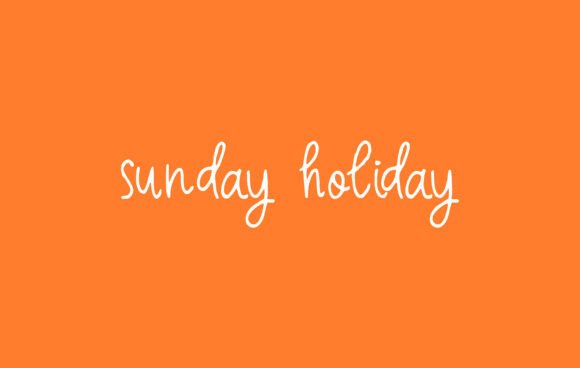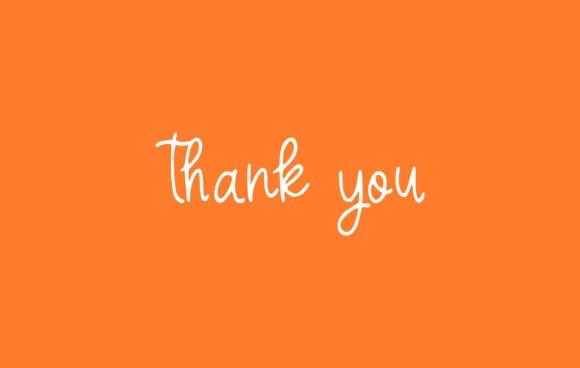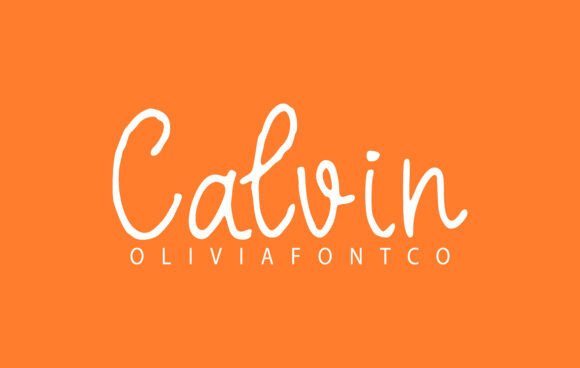
Introducing Calvin Font: The Ultimate Handwritten Font for Creative Expression
Are you tired of using the same old fonts for your designs? Look no further than Calvin Font, a beautiful and authentic handwritten font that adds a romantic touch to any project. Expertly designed to be a true favorite among designers and crafters, Calvin Font has the potential to take your creative ideas to the highest level.
What Makes Calvin Font Special?
Calvin Font is more than just a font – it’s an expression of creativity and individuality. Its unique, handwritten style gives it a personal touch that’s hard to find in digital fonts. The font is legible and looks great as a title or body text, making it perfect for a wide range of design applications.
Calvin Font is incredibly versatile, making it suitable for many different designs. Here are just a few ideas to get you started:
- Magazine Headlines: Add a touch of elegance and sophistication to your magazine headlines with Calvin Font.
- Social Media: Stand out on social media with eye-catching graphics and posts created with Calvin Font.
- Branding: Establish your brand’s unique identity with Calvin Font, perfect for logos, business cards, and more.
- Wedding Invitations: Make your wedding invitations truly special with Calvin Font’s romantic and whimsical touch.
- Cards: Create beautiful and heartfelt cards for any occasion with Calvin Font.
Why Choose Calvin Font?
There are many reasons why Calvin Font stands out from the crowd:
- Unique and Authentic: Calvin Font is a one-of-a-kind, handwritten font that will set your designs apart.
- Legible and Versatile: The font is easy to read and works well in a variety of design applications.
- Romantic and Whimsical: Calvin Font adds a touch of romance and playfulness to any design.
Tips for Using Calvin Font
To get the most out of Calvin Font, here are a few tips:
- Experiment with Sizes: Calvin Font looks great in a variety of sizes, from large headlines to smaller body text.
- Play with Colors: The font works well with a range of colors, so don’t be afraid to get creative and try out different combinations.
- Mix and Match: Combine Calvin Font with other fonts and design elements to create a unique and eye-catching look.
Calvin Font is a truly special font that has the potential to elevate your designs to new heights. With its unique, handwritten style and romantic touch, it’s perfect for designers and crafters looking to add a personal touch to their work. Whether you’re creating magazine headlines, social media graphics, or wedding invitations, Calvin Font is sure to become a favorite in your design arsenal.